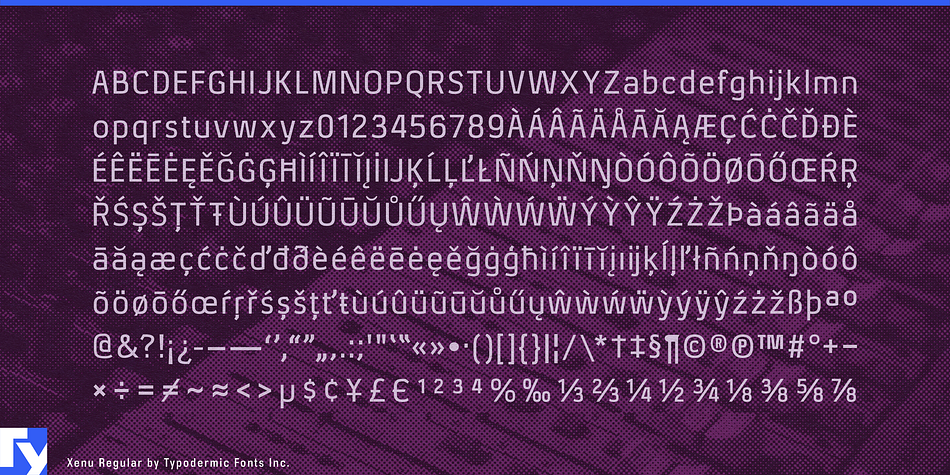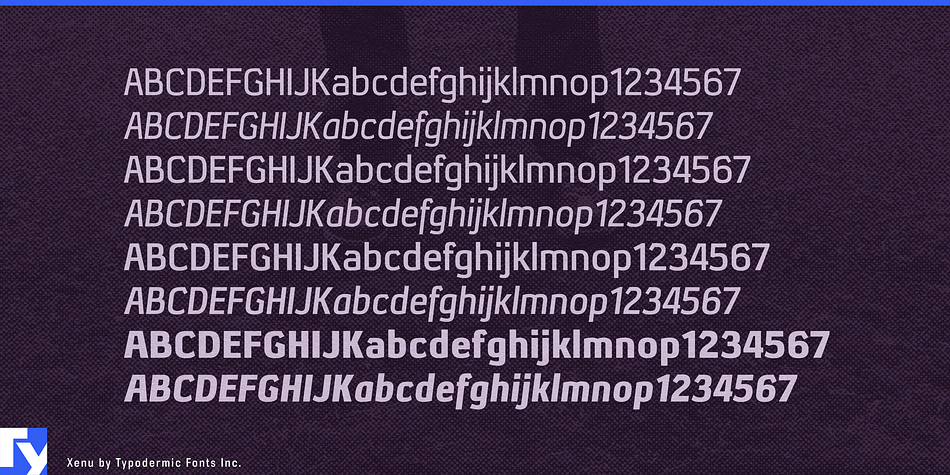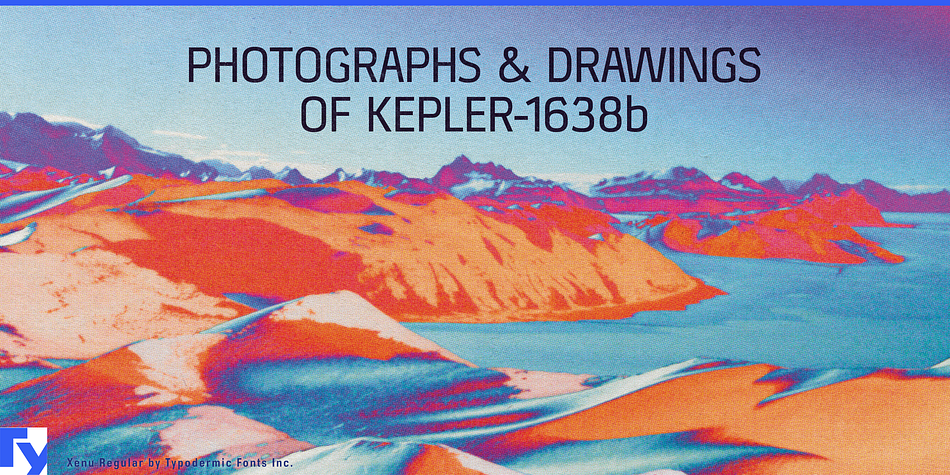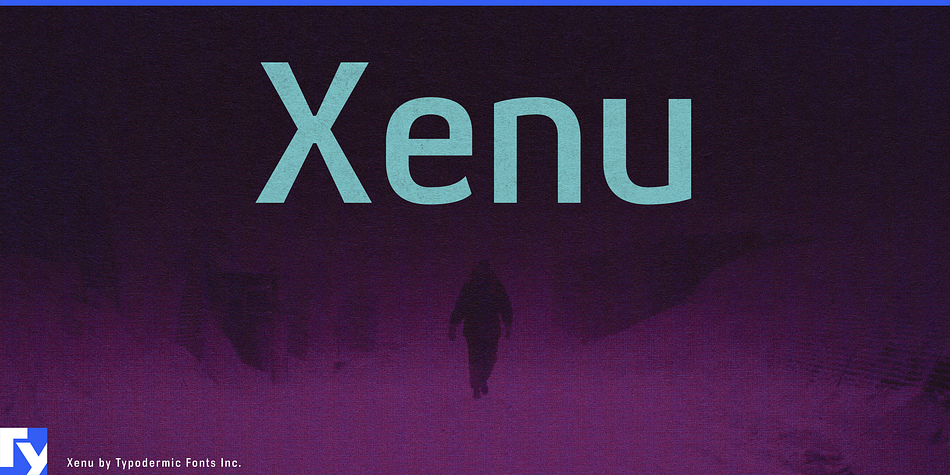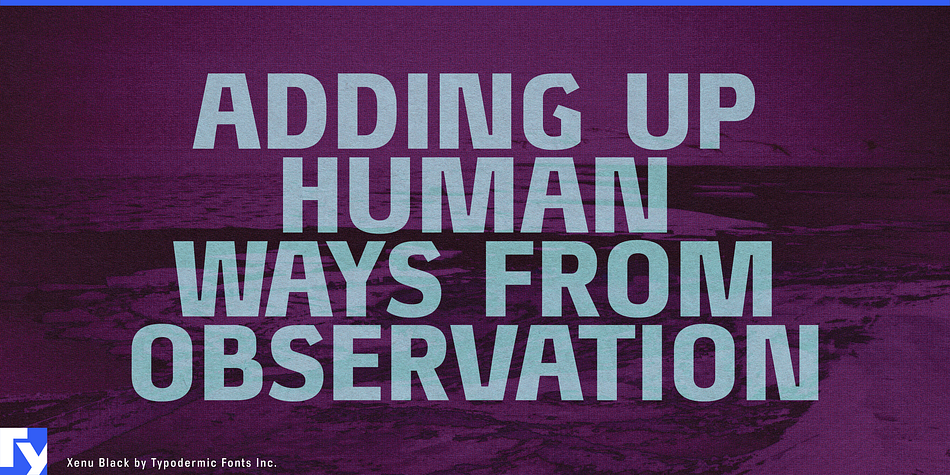
Xenu is a sans serif font family. This typeface has eight styles and was published by Typodermic Fonts Inc.
Xenu is a technical-style sans serif typeface. Constructed, mechanical forms and robotic accents give Xenu a stark, methodical feeling. Xenu is available in 4 weights plus italics.